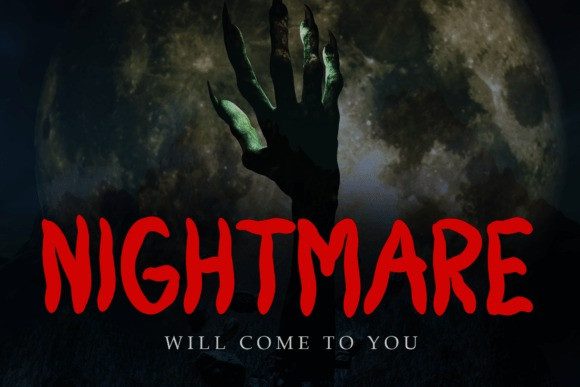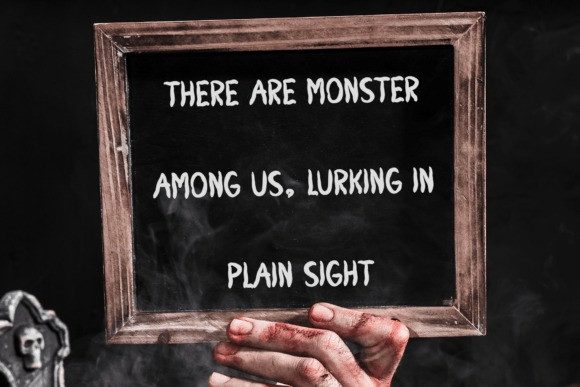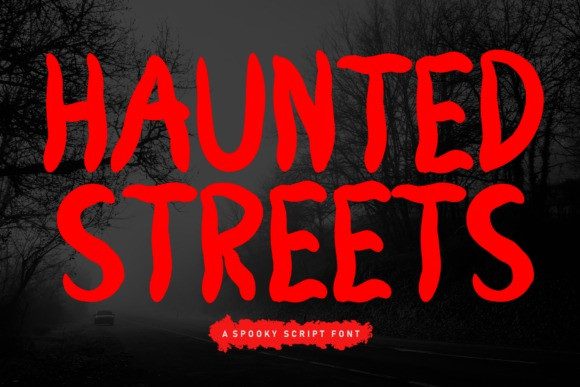
Haunted Streets Font
Haunted Streets Font is a fun and spooky display font. Cute and fun, this font is ideal for writing wedding invitations, cards, or any other design that might need a fun touch!